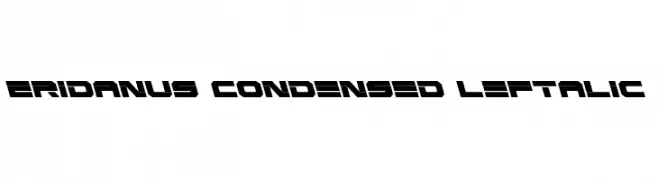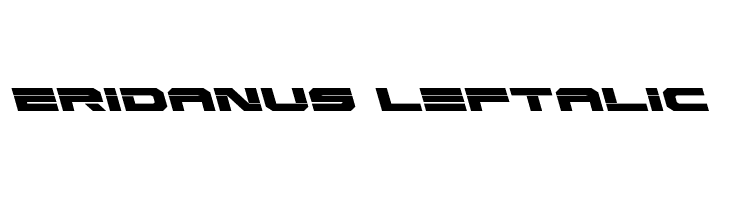
A bold, condensed, and angular font with a futuristic and dynamic style.
A bold, futuristic, and condensed semi-italic font with angular, geometric characters.
A bold, geometric font with an expanded width and futuristic style.
A bold, expanded, and italicized futuristic font with angular, dynamic characters.
A bold, geometric font with a futuristic and extra-condensed style.
A bold, italicized, extra-condensed font with a modern, geometric style.
A futuristic, italic font with sharp angles and a dynamic style.
A futuristic, geometric font with bold, angular shapes and a stencil-like appearance.
A bold, italicized font with a futuristic and angular design.
A bold, futuristic font with sharp, angular edges and a geometric style.